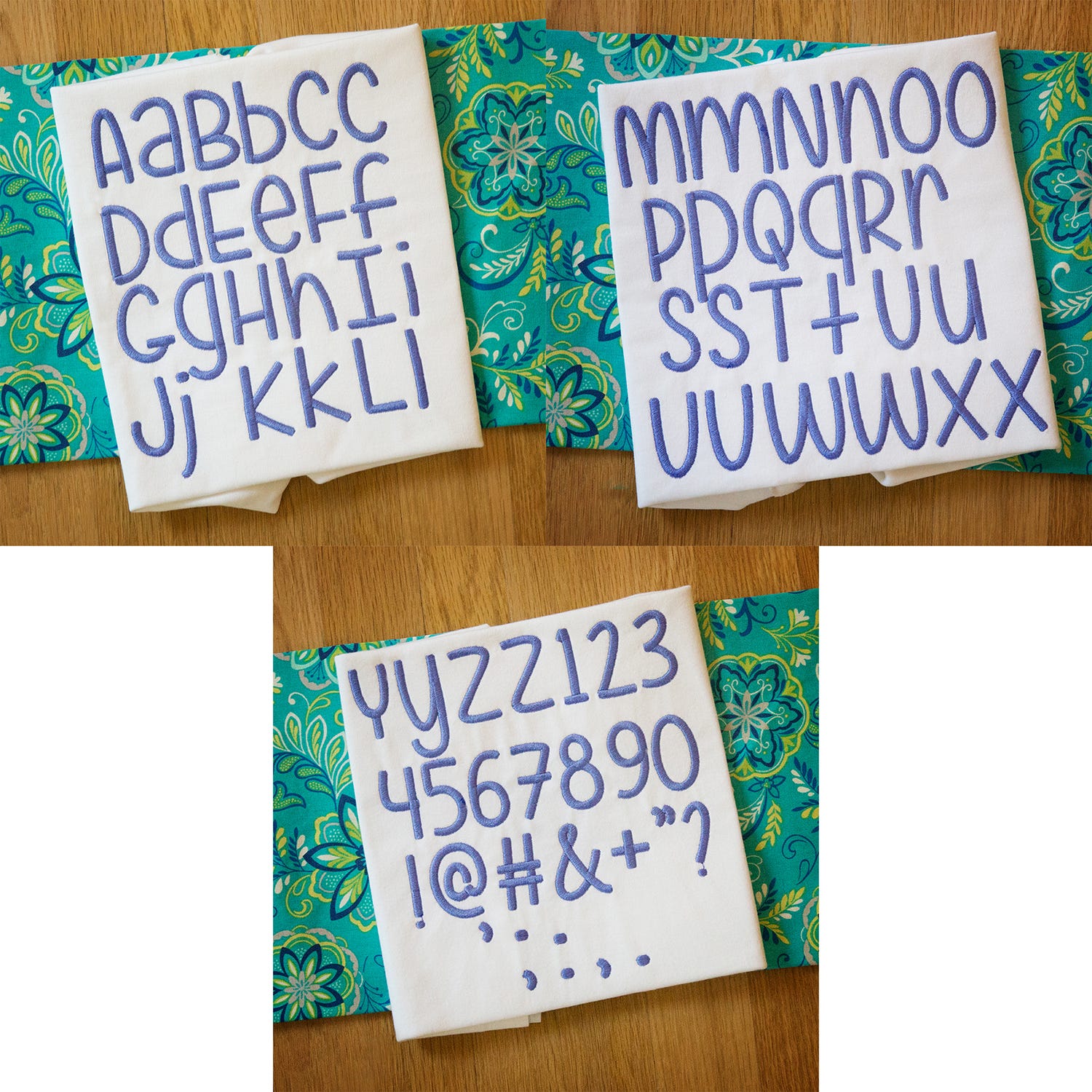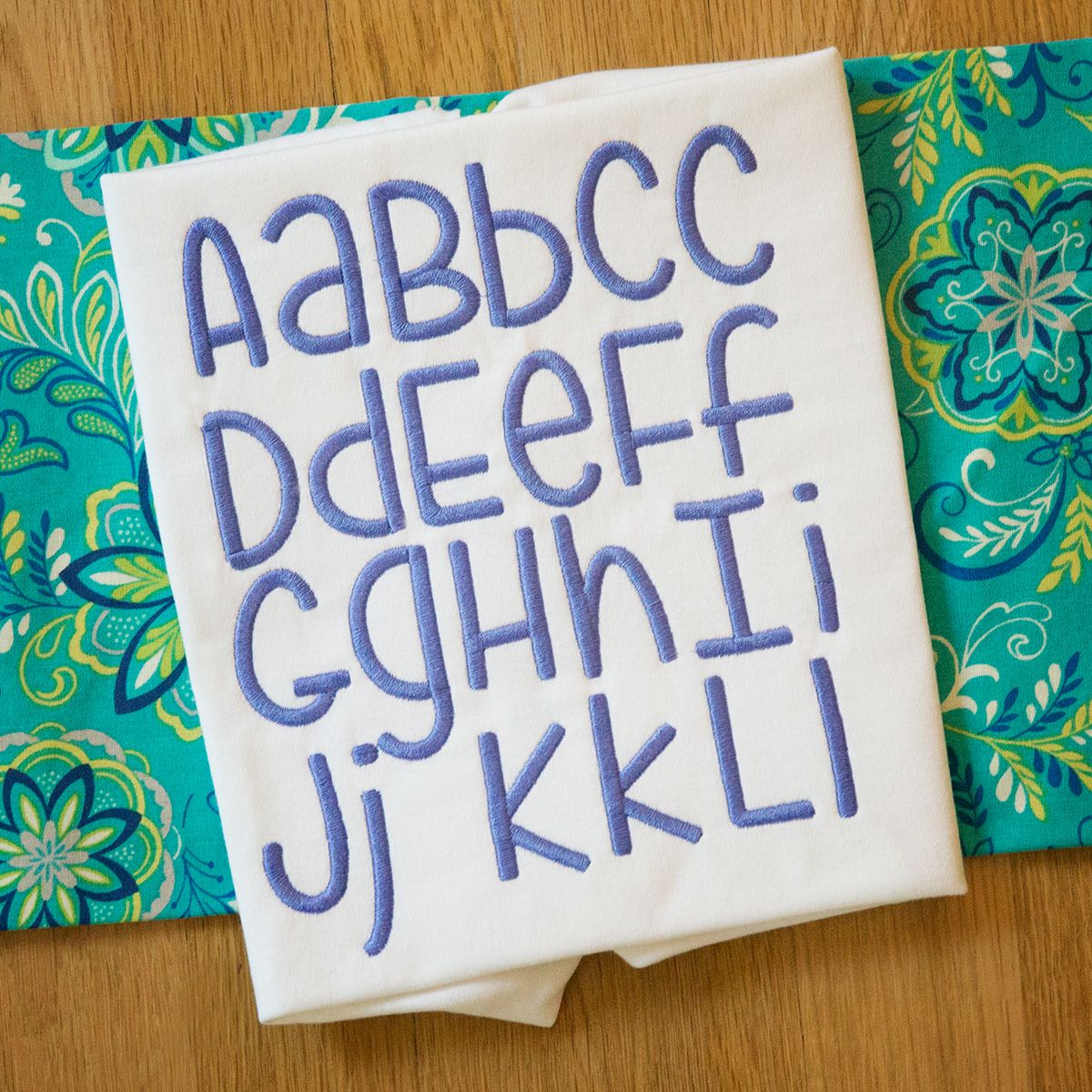
Are You Freakin Serious Satin Stitch Embroidery Font
A cute and quirky font..bold and fun!  All of our font alphabets are 100% manually digitized to bring you maximum stitch quality.